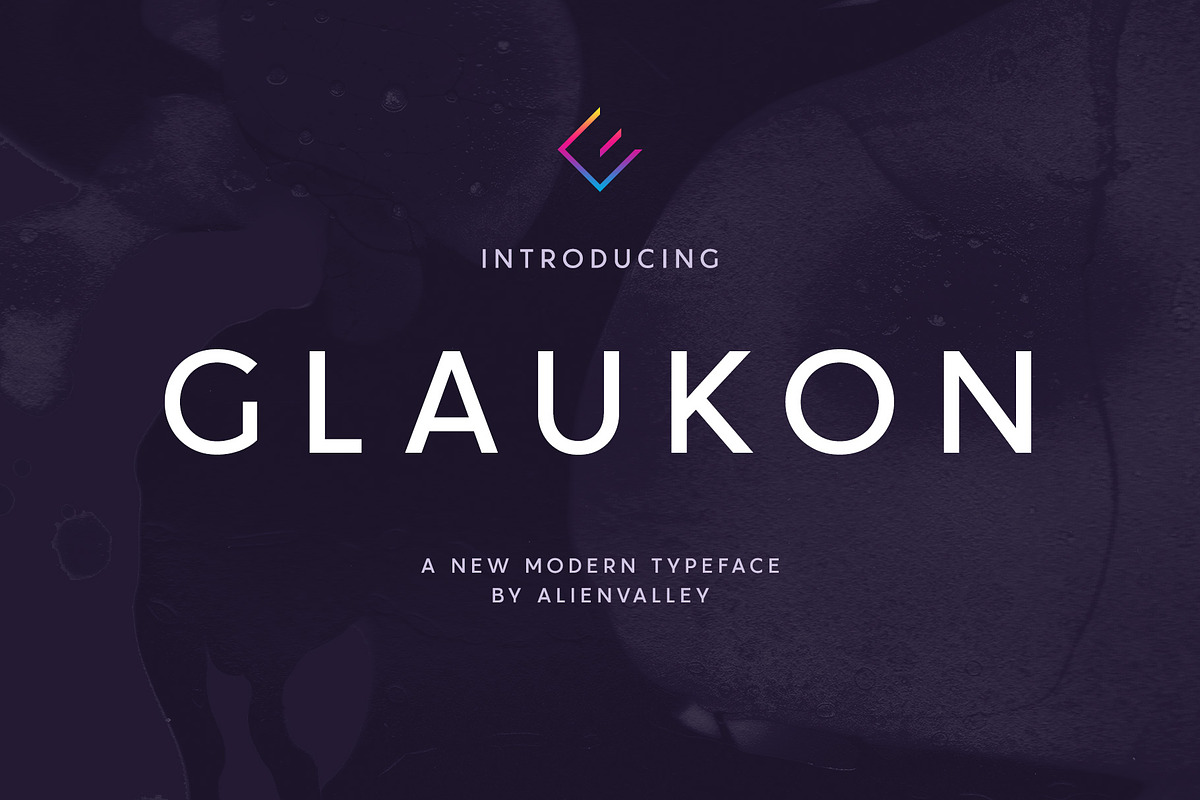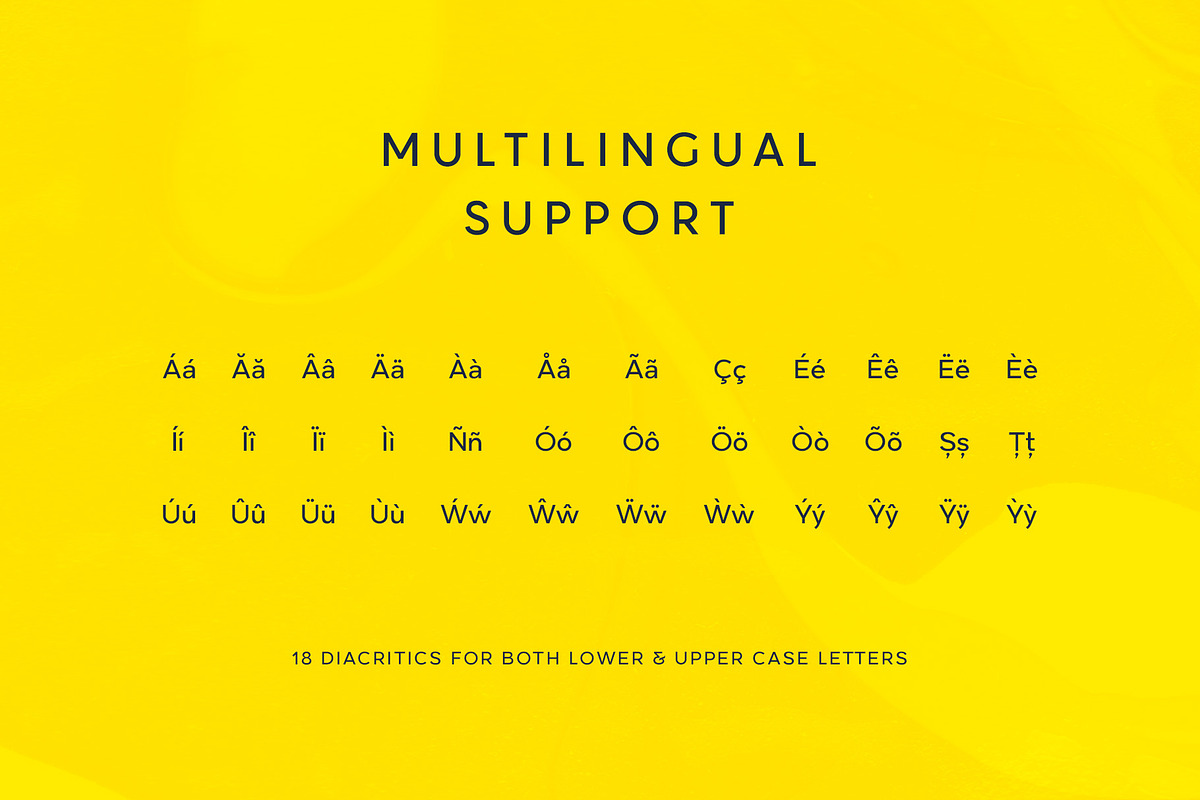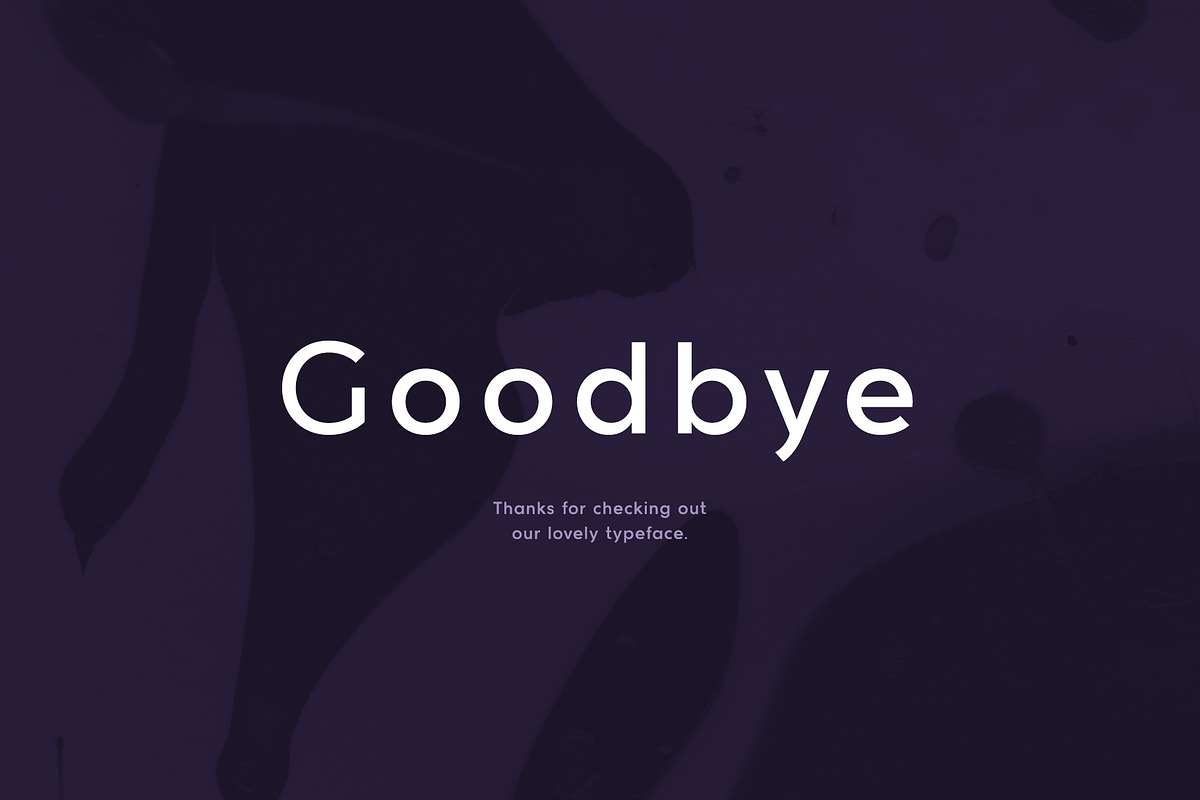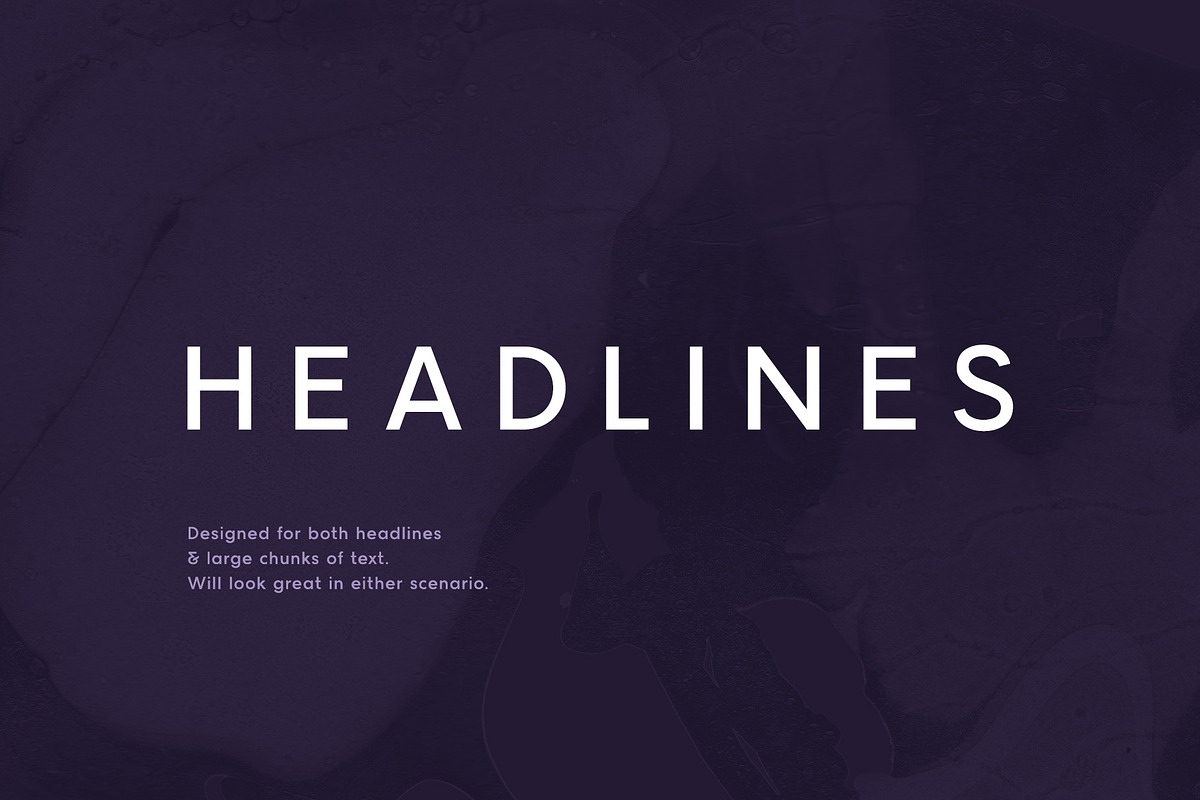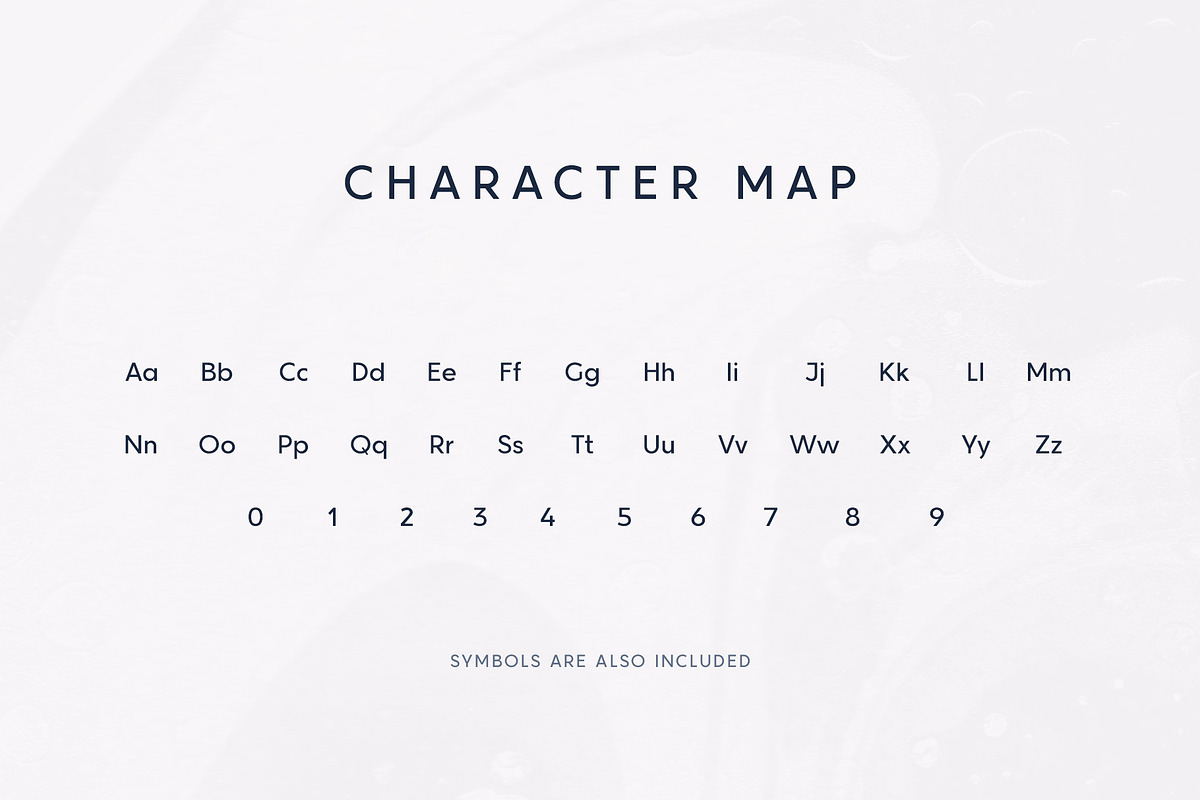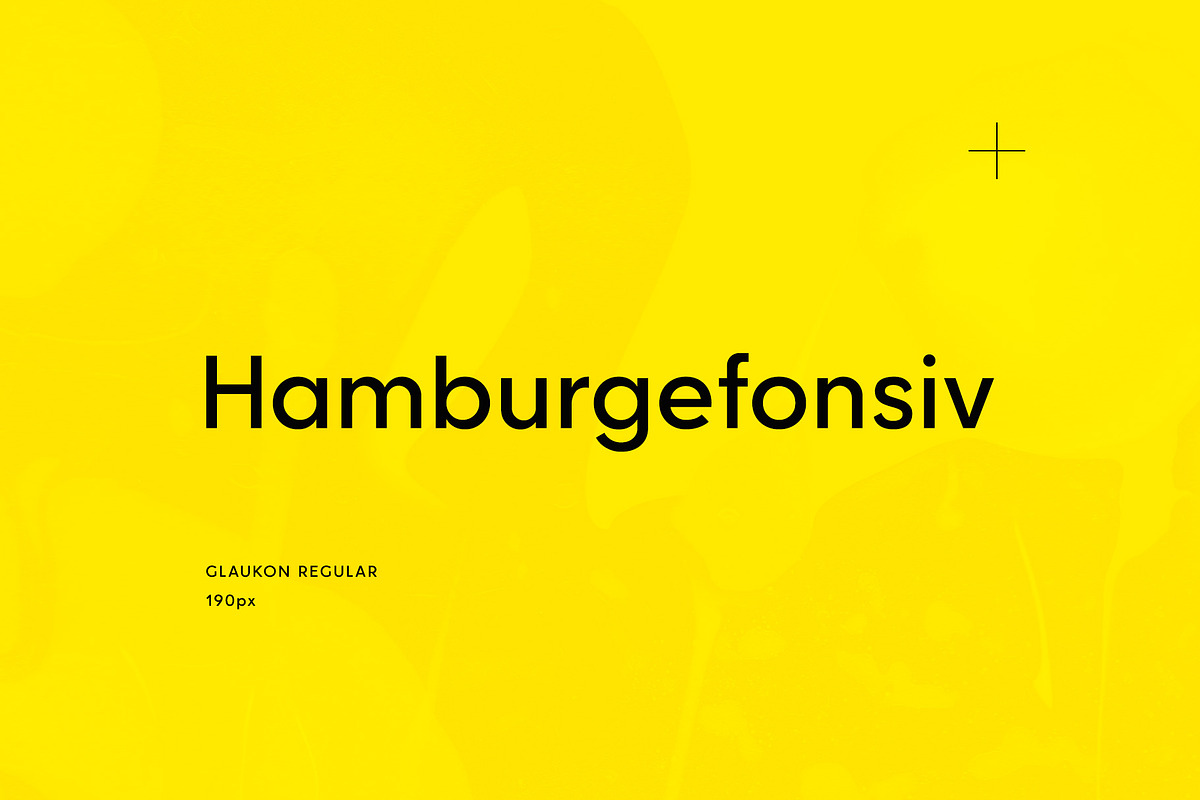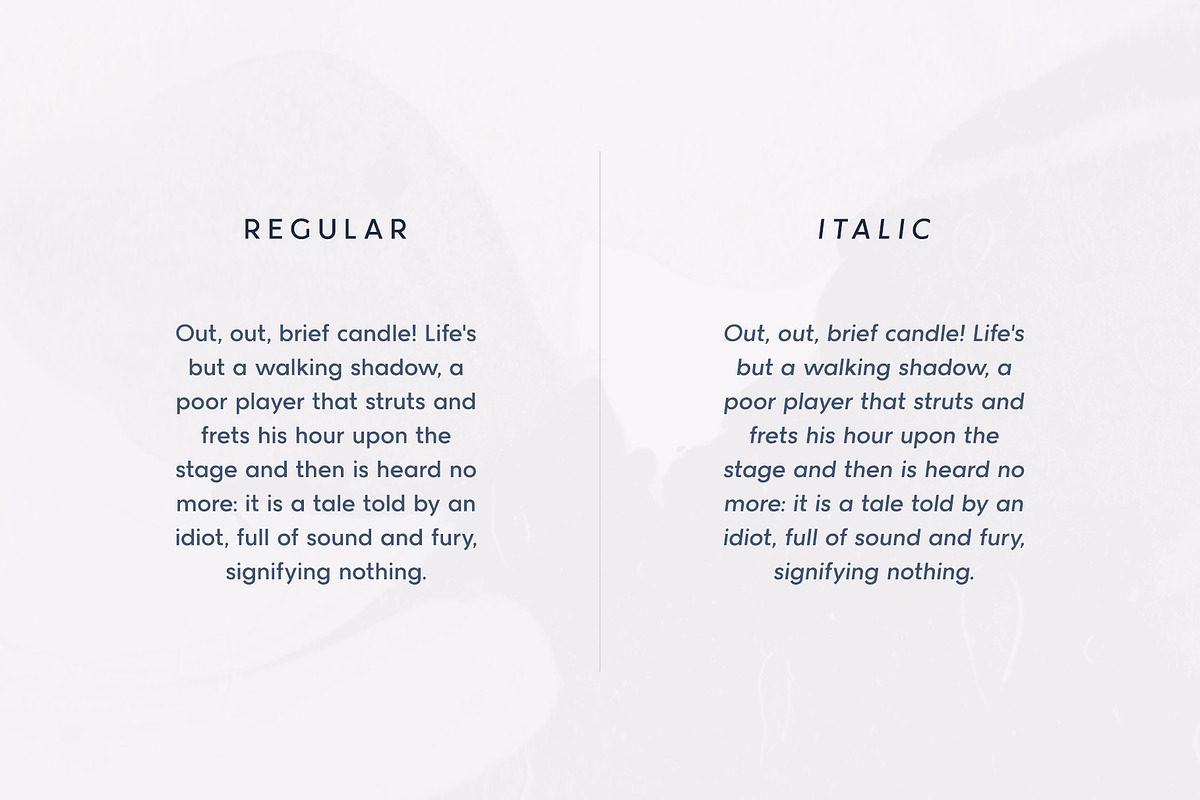
Glaukon - Modern Sans-Serif
A modern sans-serif typeface designed to look great when used for both headlines and large chunks of texts. You can use it for anything from magazine covers, website titles and articles to professional business cards, product packaging, album covers and more. It also comes with 2 styles, regular and italic.
- Modern design
- Great for headlines & small text
- Optimized for readability
- Looks great with extra letter spacing
- 2 Included styles: Regular & Italic